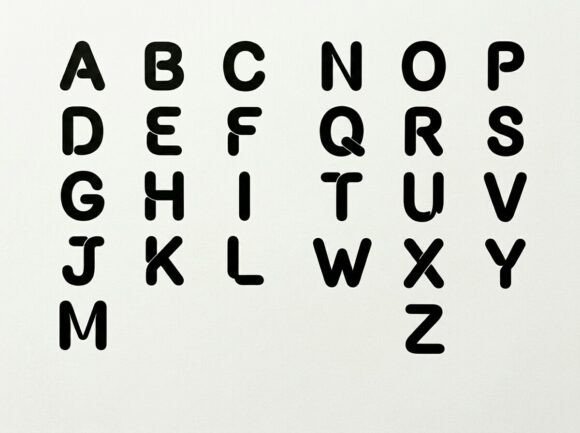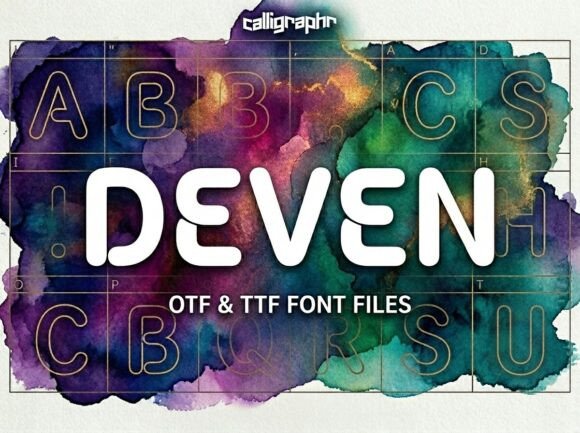
Introducing Deven Font: A Stunning Decorative Display Font
Are you tired of using the same old fonts for your designs? Do you want to add a touch of uniqueness and creativity to your projects? Look no further than Deven Font, a decorative display font that is sure to turn heads. In this article, we’ll take a closer look at what makes Deven Font special and how it can elevate your designs.
Deven Font is a stunning decorative display font designed to be the center of attention. With its unique artistic elements and strong visual personality, this font is perfect for creators who want to break away from the ordinary. Whether you’re working on a bold headline, artistic logo, or creative packaging, Deven Font is versatile enough to make a lasting impression.
What to Expect from Deven Font
Before purchasing Deven Font, it’s essential to note that this font is an ALL-CAPS (Uppercase Only) display typeface. This means that it does not include lowercase letters. Deven Font is specifically designed for high-impact headlines, logos, and decorative initials where every letter is a work of art.
Deven Font is perfect for designers and crafters who want to add a touch of elegance and sophistication to their projects. With its unique and artistic elements, this font is ideal for:
• Headlines and Titles: Deven Font is perfect for creating bold and eye-catching headlines that demand attention.
• Logos and Branding: This font is great for creating artistic logos and branding materials that reflect your company’s personality.
• Packaging and Product Design: Deven Font can add a touch of creativity and uniqueness to your packaging and product design.
Why Choose Deven Font?
So, why choose Deven Font over other fonts on the market? Here are just a few reasons:
• Unique and Artistic: Deven Font features unique artistic elements that will set your designs apart from the rest.
• Versatile: This font is versatile enough to be used for a variety of design projects, from headlines and logos to packaging and product design.
• Professional and Polished: Despite its decorative nature, Deven Font maintains a professional and polished finish that’s perfect for any design project.
Font Name Deven Font
Author LINEART3
In conclusion, Deven Font is a stunning decorative display font that’s perfect for designers and crafters who want to add a touch of uniqueness and creativity to their projects. With its unique artistic elements, strong visual personality, and versatility, this font is sure to elevate your designs and make a lasting impression. So why wait? Purchase Deven Font today and take your designs to the next level!